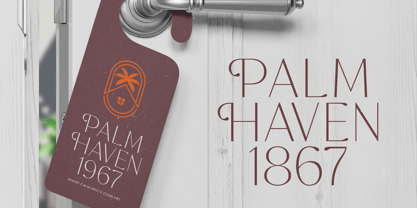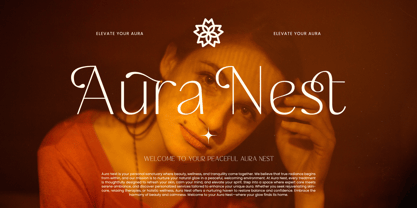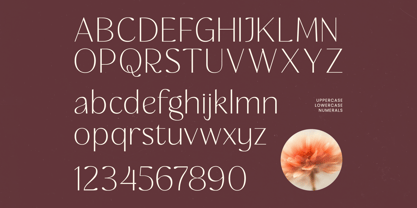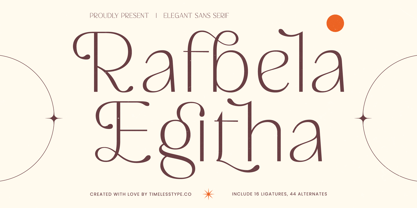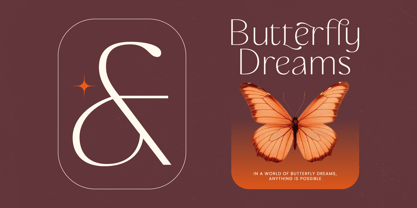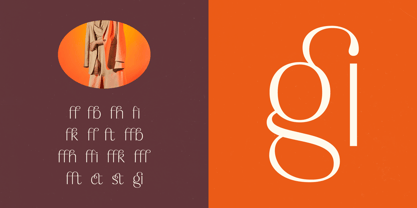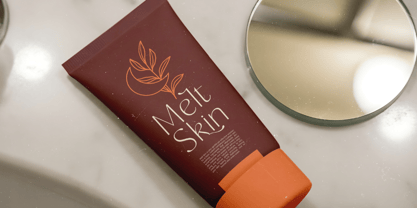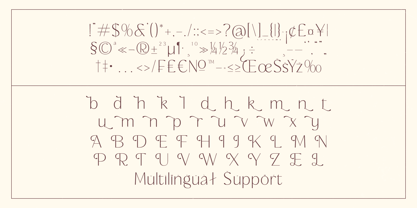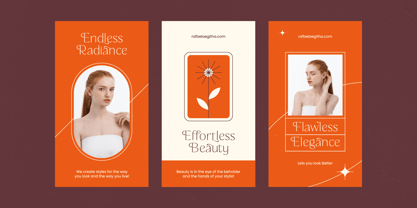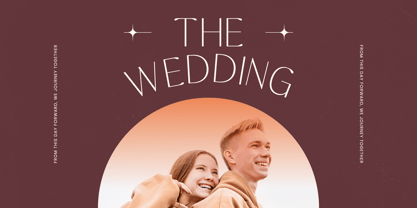
Rafbela Egitha
by Timelesstype Studio
The Rafbela Egitha Font Family was designed by Heru Utama Putra and published by Timelesstype Studio. Rafbela Egitha contains 2 styles and family package options. More about this family
Rafbela Egitha - Elegant Sans Serif , from Timelesstype .Co , Suitable for any projects such as: logos, branding projects, homeware designs, product packaging, mugs, quotes, posters, shopping bags, t-shirts, book covers, name card, invitation cards, greeting cards, label, photography, watermark, special events, and all your other luxury and beautiful projects that need a Luxury Serif taste.